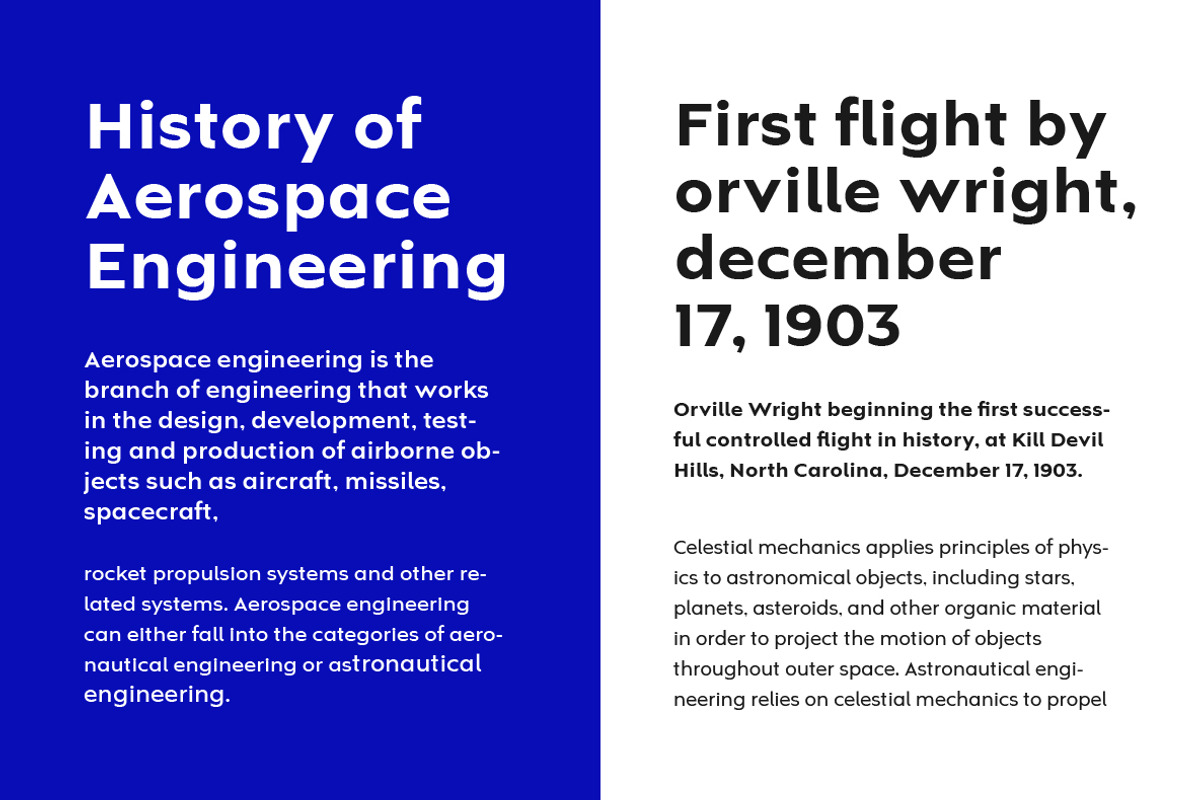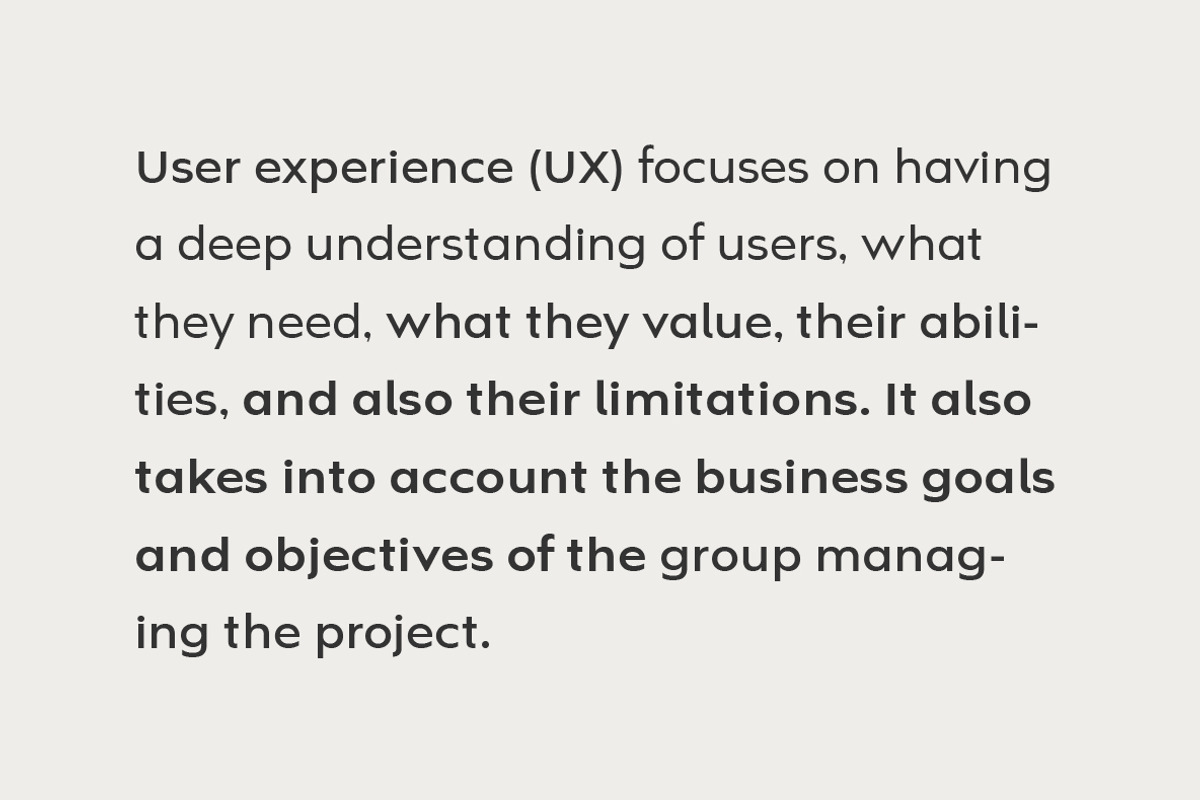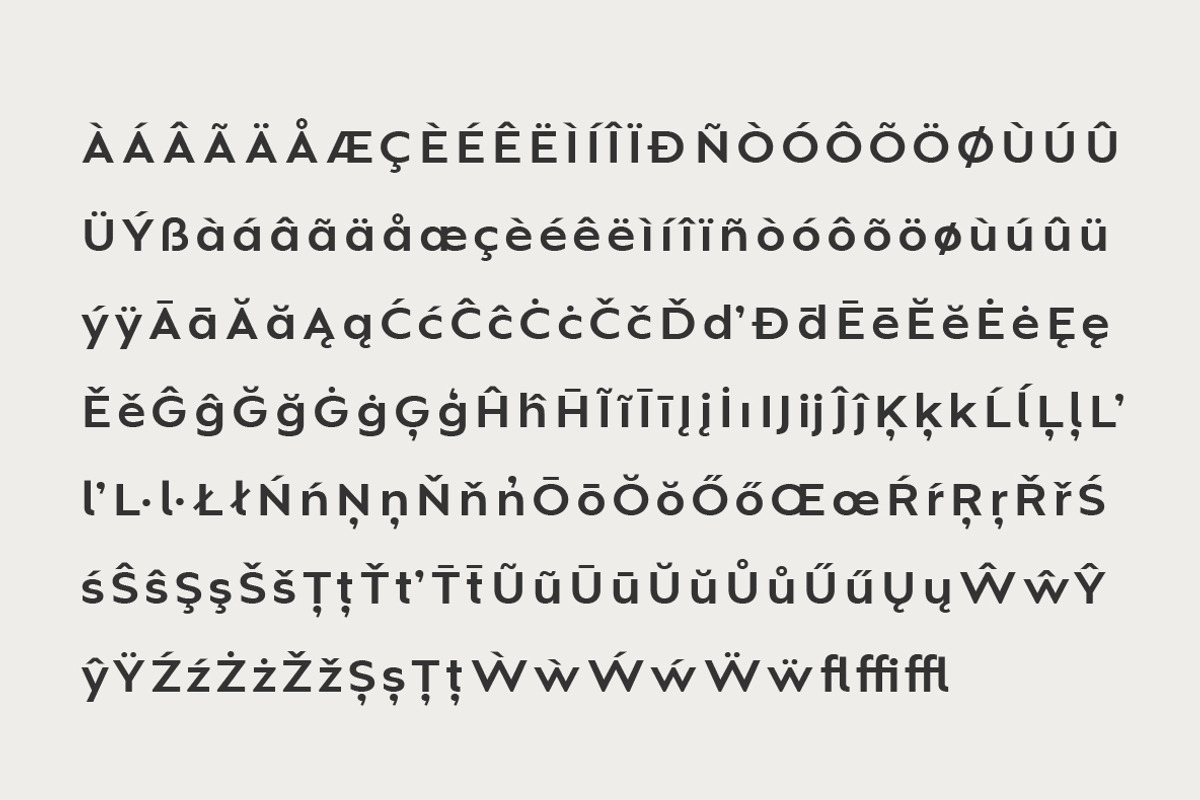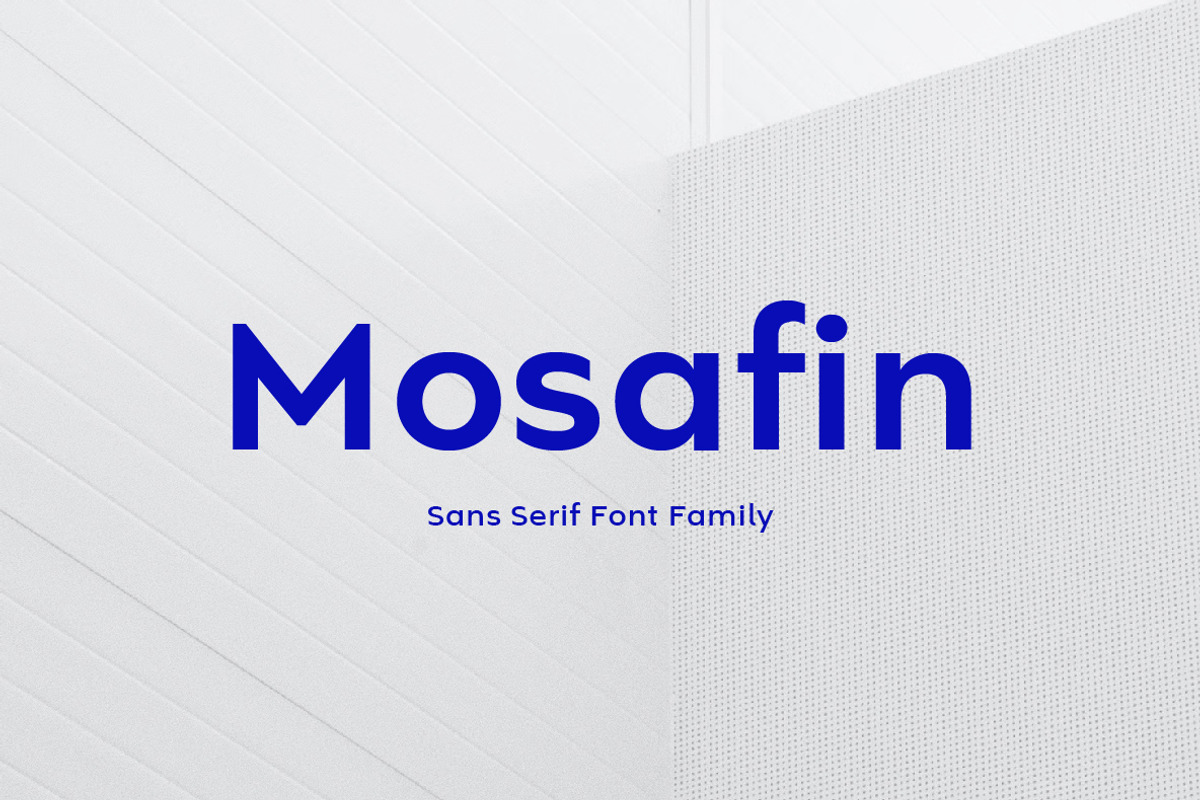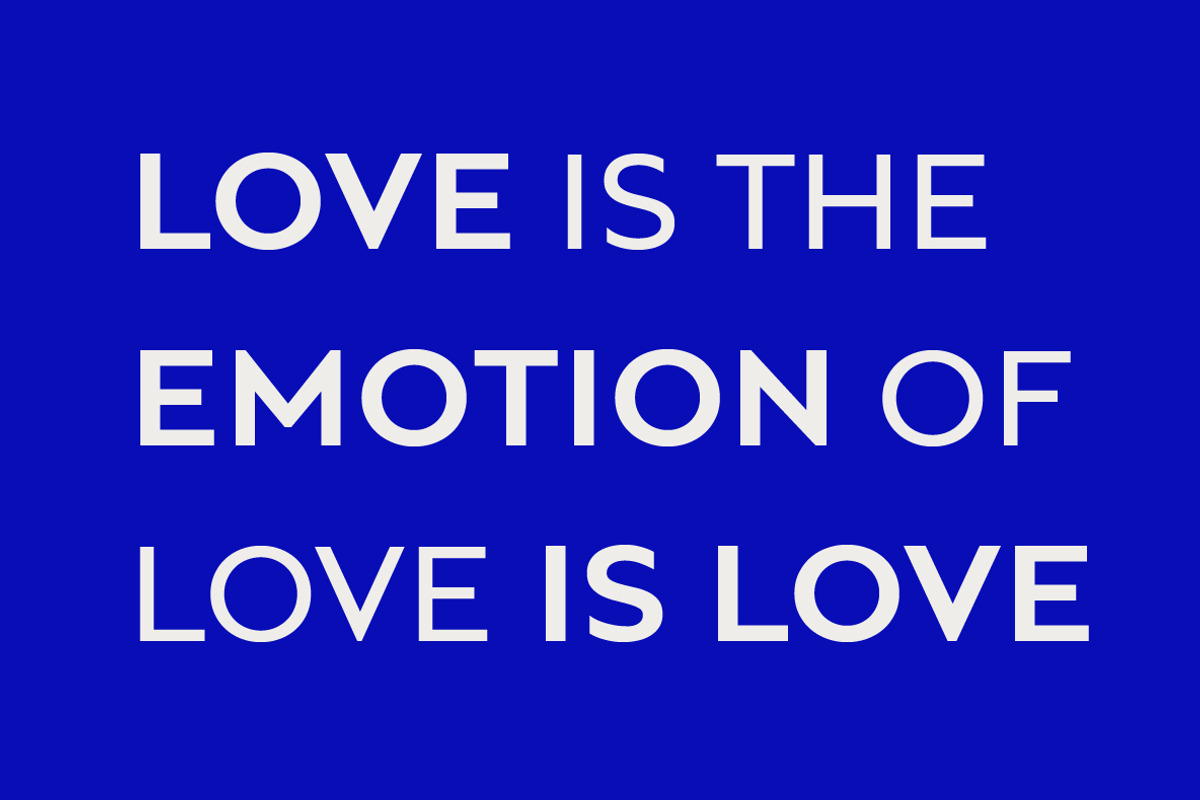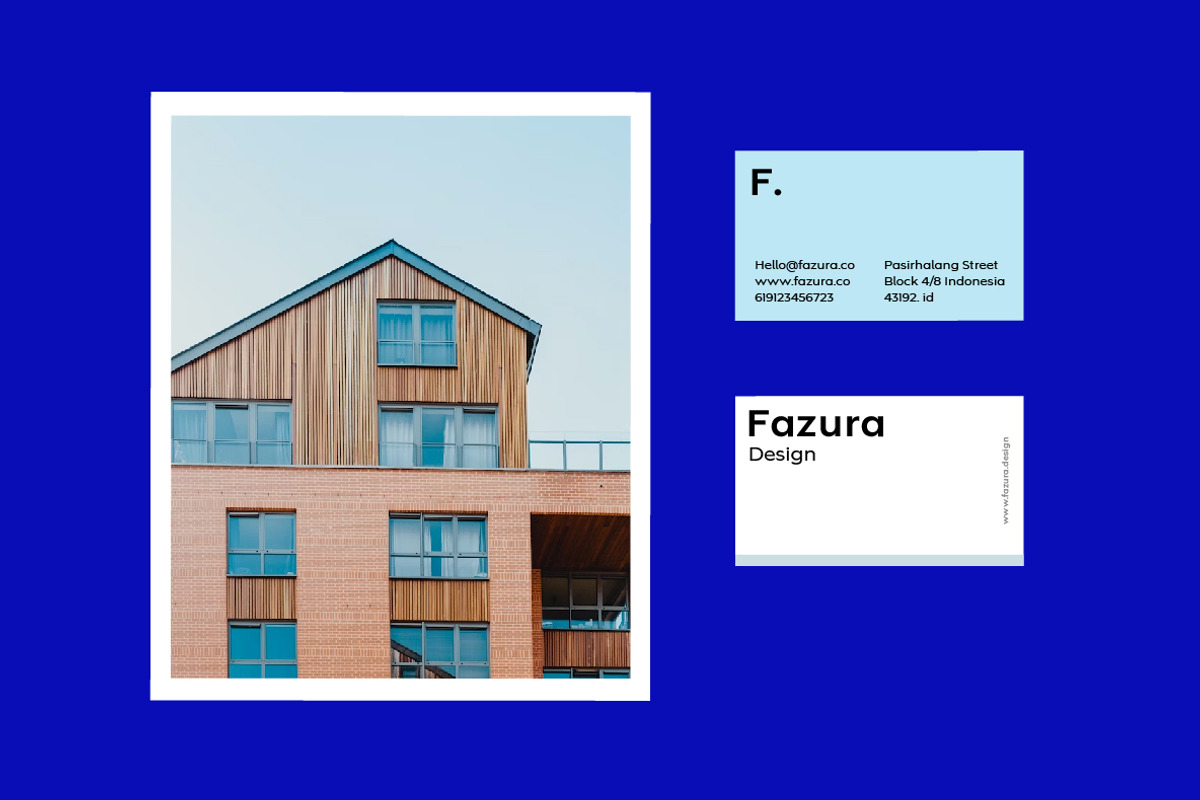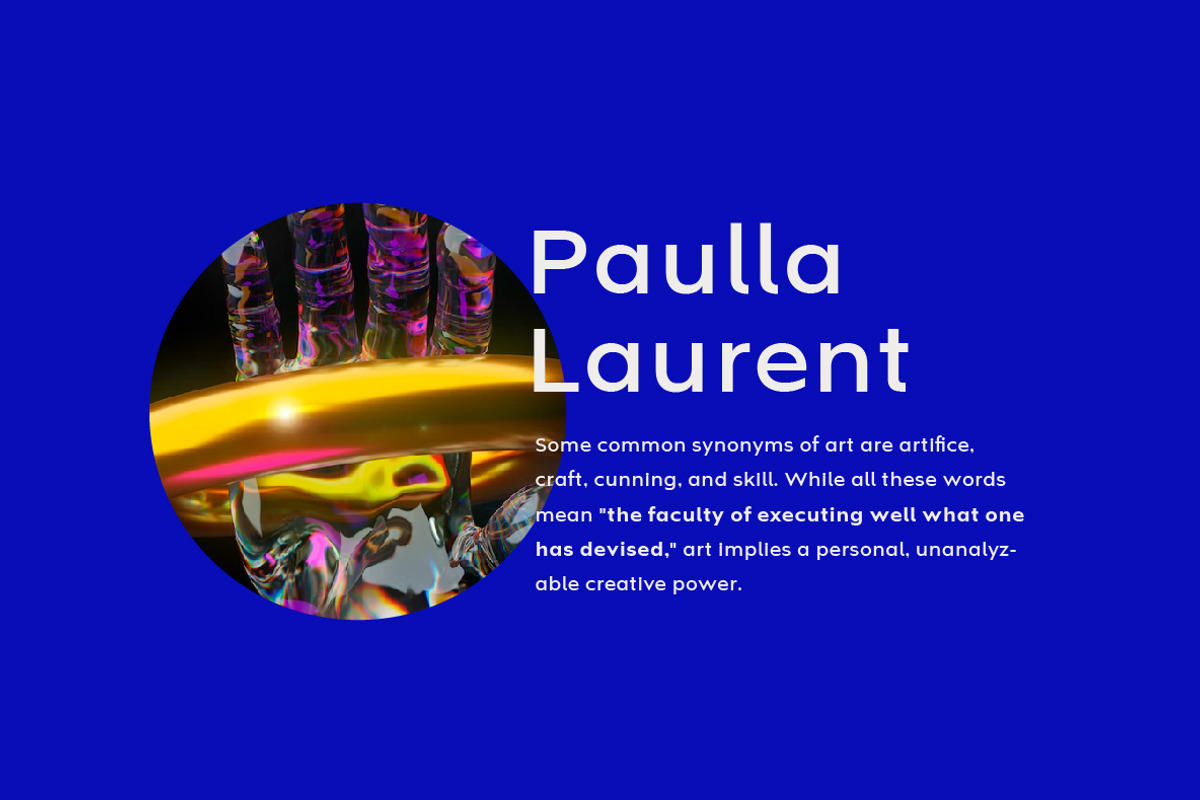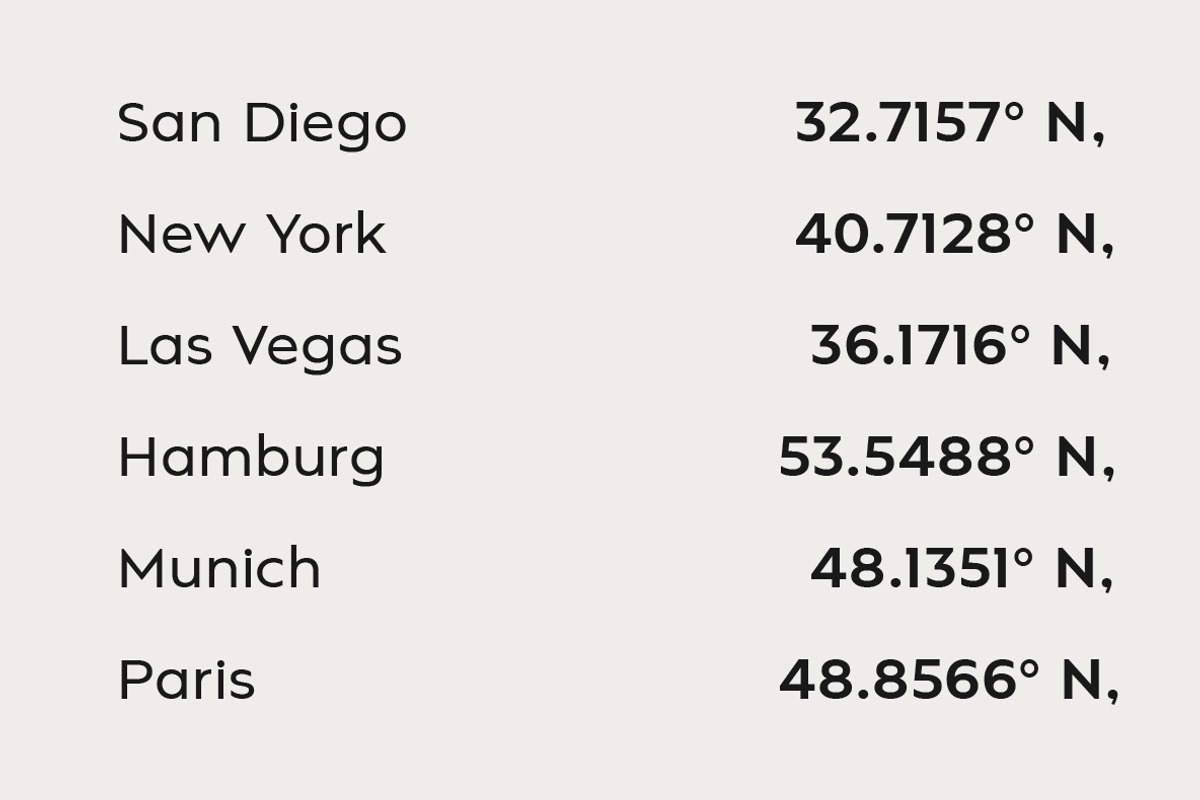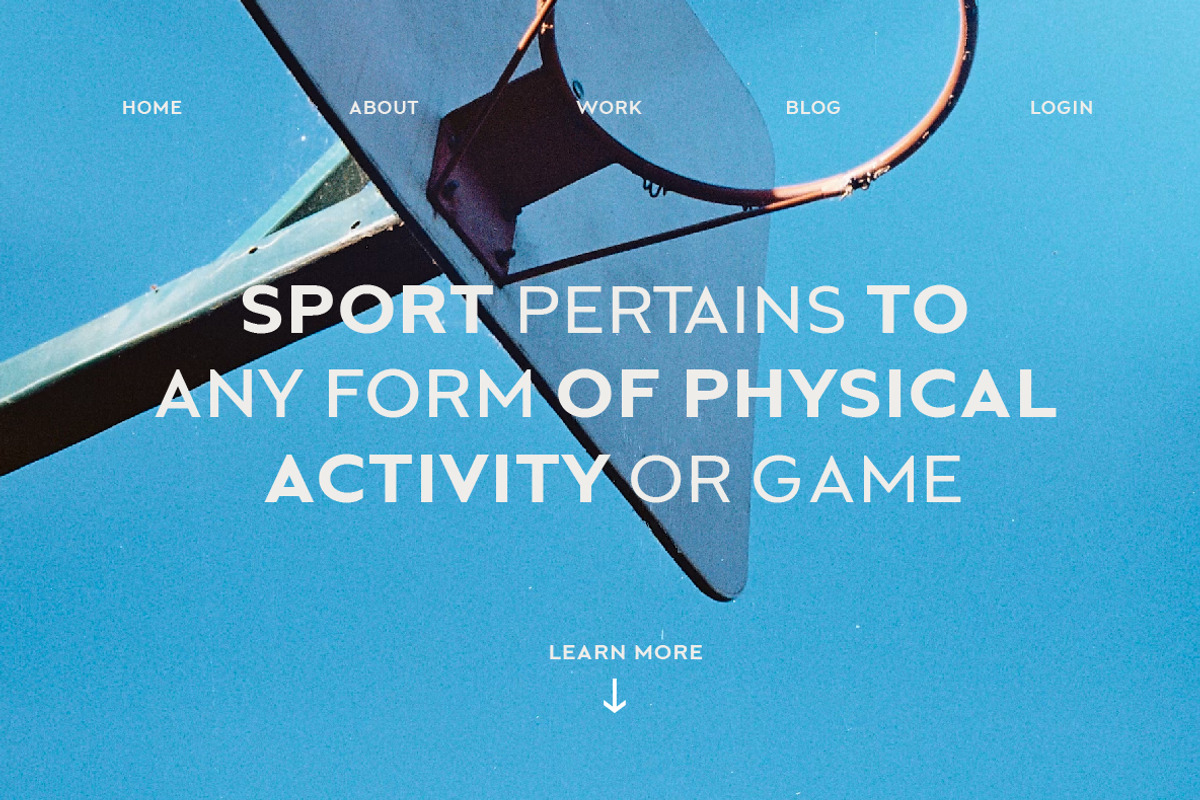
Mosafin Sans Serif Font Family
The Mosafin font is a sans-serif typeface that has a modern and elegant design. This font has a very consistent and proportional letterform, and has clean and firm lines, making it easy to read and very suitable for various graphic design purposes.
Made with the latest technology and excellent design, the Mosafin font has distinctive characteristics, such as very geometric letter shapes, with sharp angles and clear, thin lines. This font can be used in various media, such as poster designs, logos, business cards, banners, and various other design purposes.
This font also has a proportional font size ratio, so it's easy to read at any size